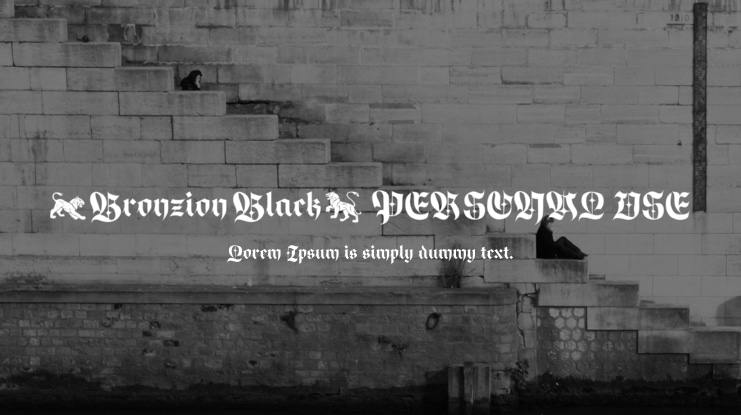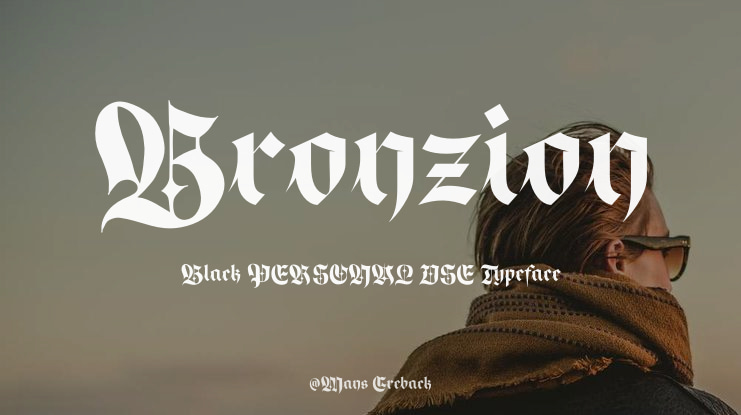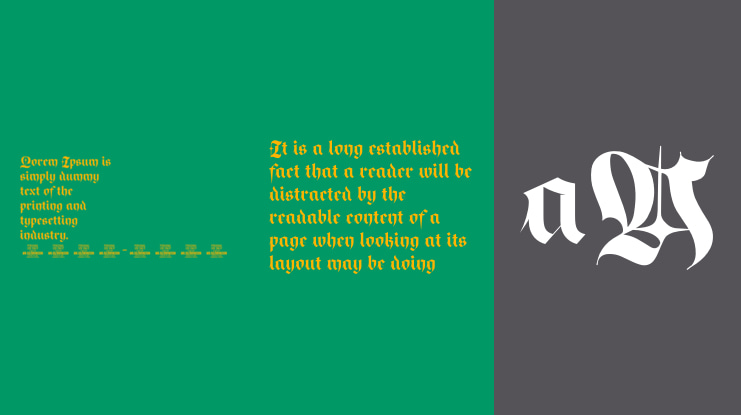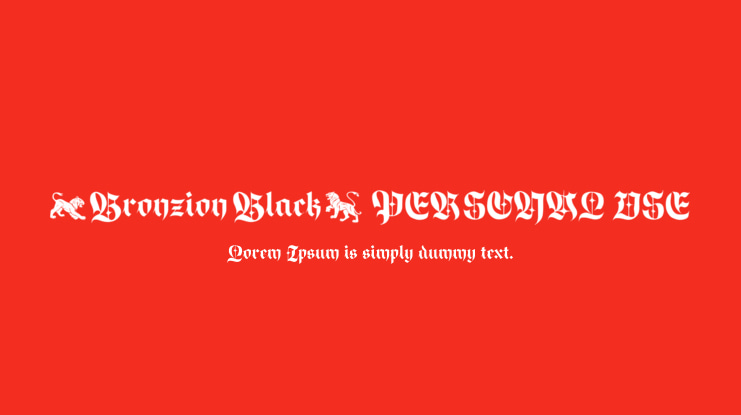
Bronzion Black PERSONAL USE Font
Bronzion Black is a bold blackletter typeface with large hand-painted capitals, giving a raw and authentic feel.
You can use characters like πŸŒ²πŸŒ³πŸŽ πŸ‚πŸ…πŸ†πŸˆπŸ‰πŸŽπŸ•πŸ¦πŸ―πŸ²πŸΊπŸ‘‘πŸ‘ΈπŸ—‘πŸ€΄πŸ¦πŸ¦…πŸ¦‡πŸ¦ŒπŸ¦ŽπŸ¦“πŸ¦– to create heraldry-inspired logos and symbols. Example: MagicπŸ‰Empire